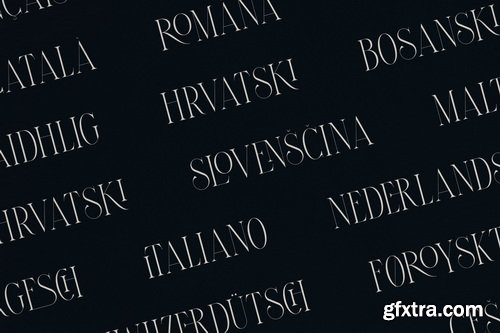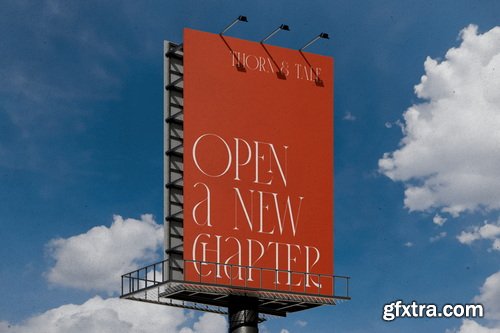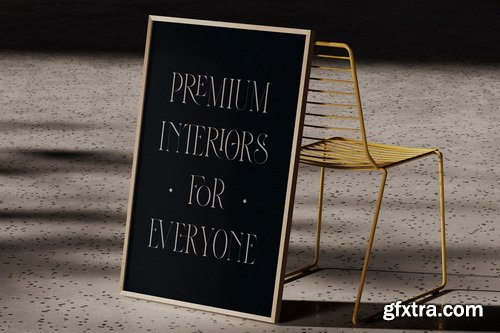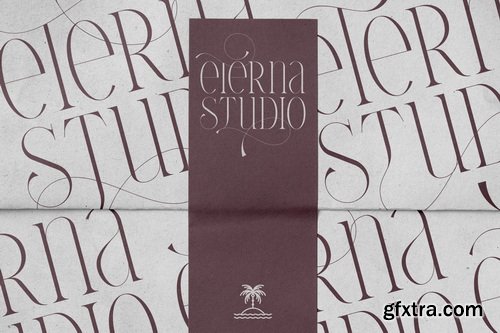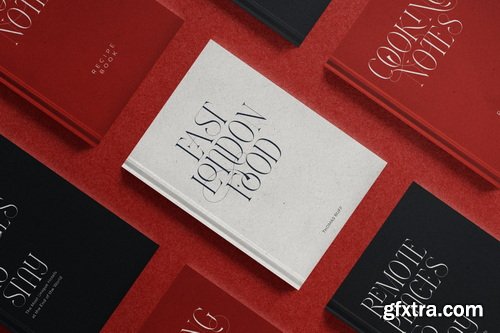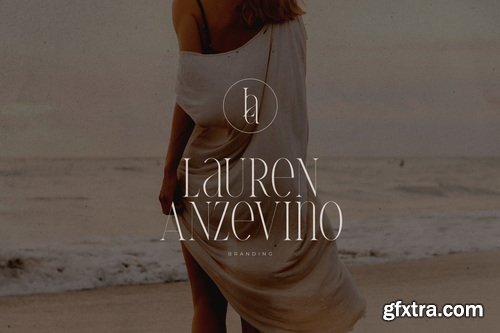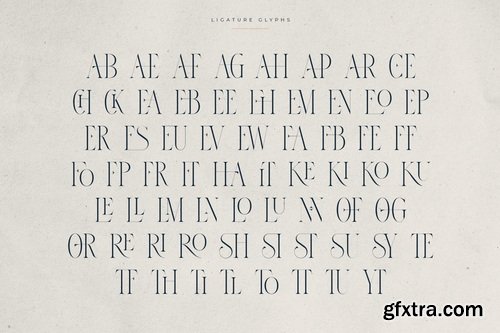
CreativeMarket - Thorn & Tale – A Refined Serif Font
Thorn & Tale is a high-contrast serif font crafted with elegance and drama in mind. Designed for luxury branding, editorial design, packaging, and high-impact typographic statements, this typeface blends classic sophistication with modern expressiveness.